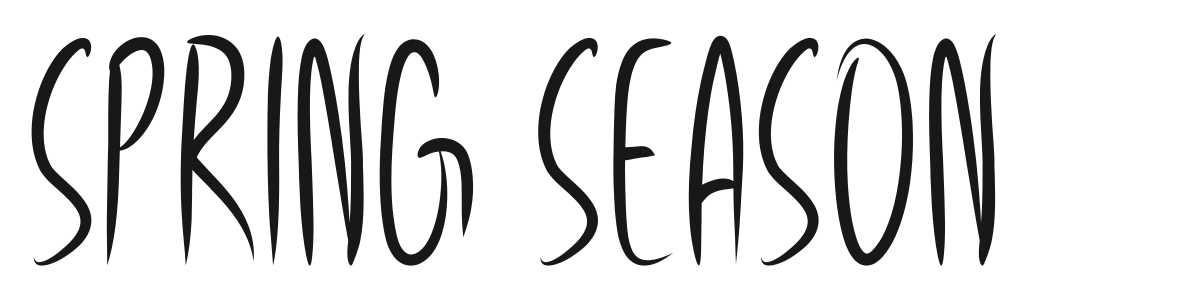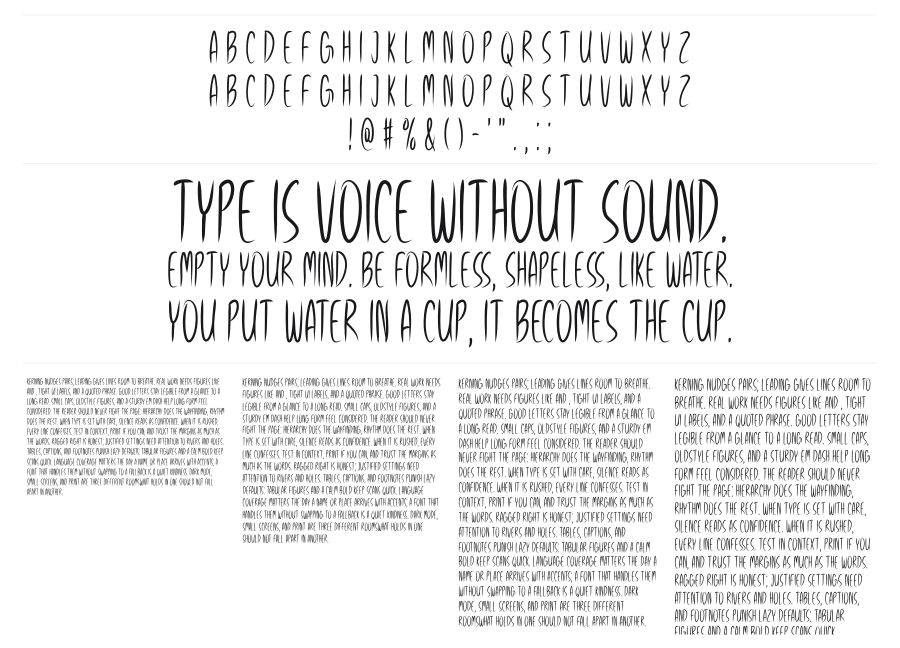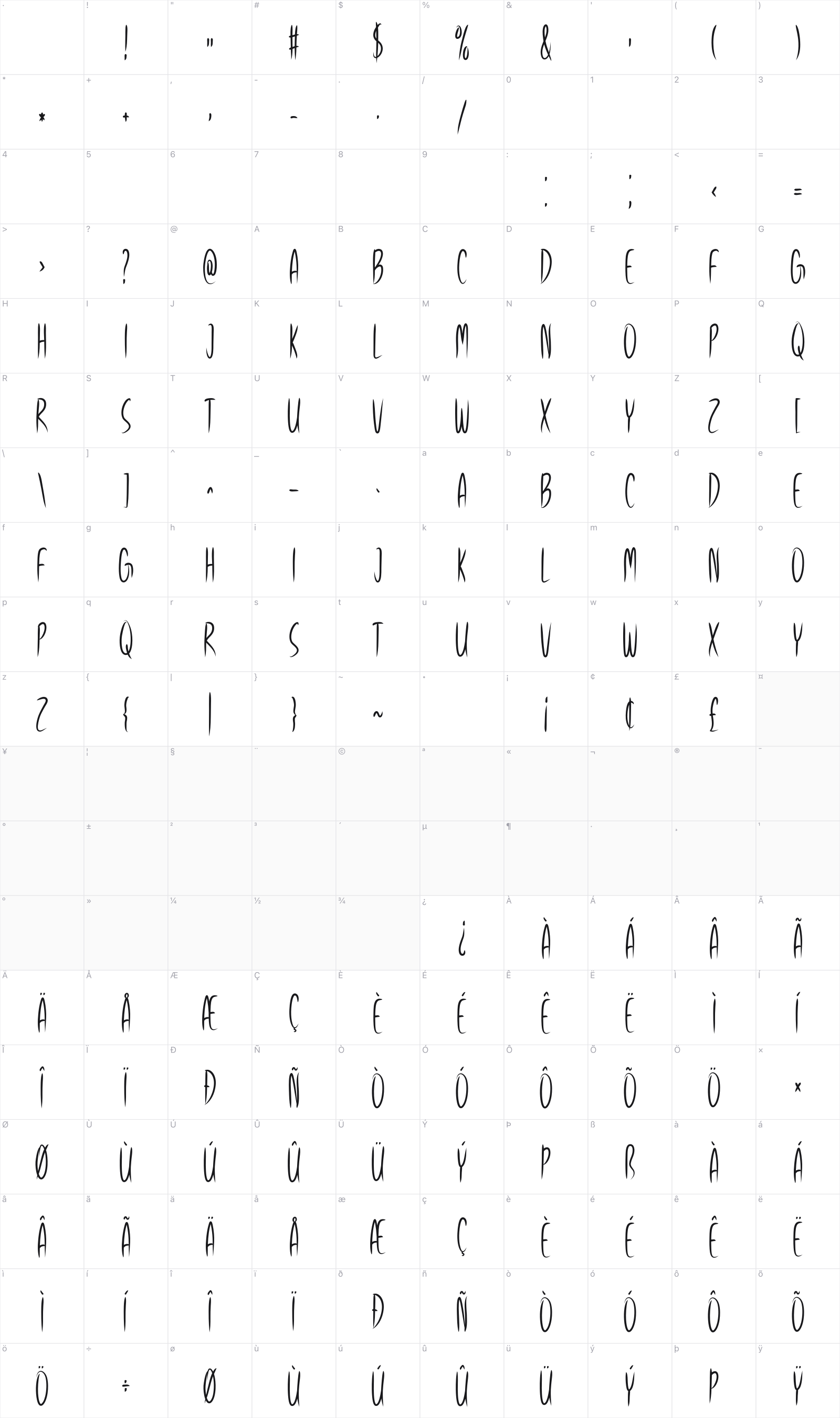
Spring Season
Spring Season is a tall, condensed brush script with dramatic stroke contrast and sharp tapered terminals that suggest natural, organic forms. The characters feel hand-inked and spontaneous, with a raw energy that works well at large sizes. It brings an expressive, handcrafted quality to seasonal branding, packaging, and editorial headlines.